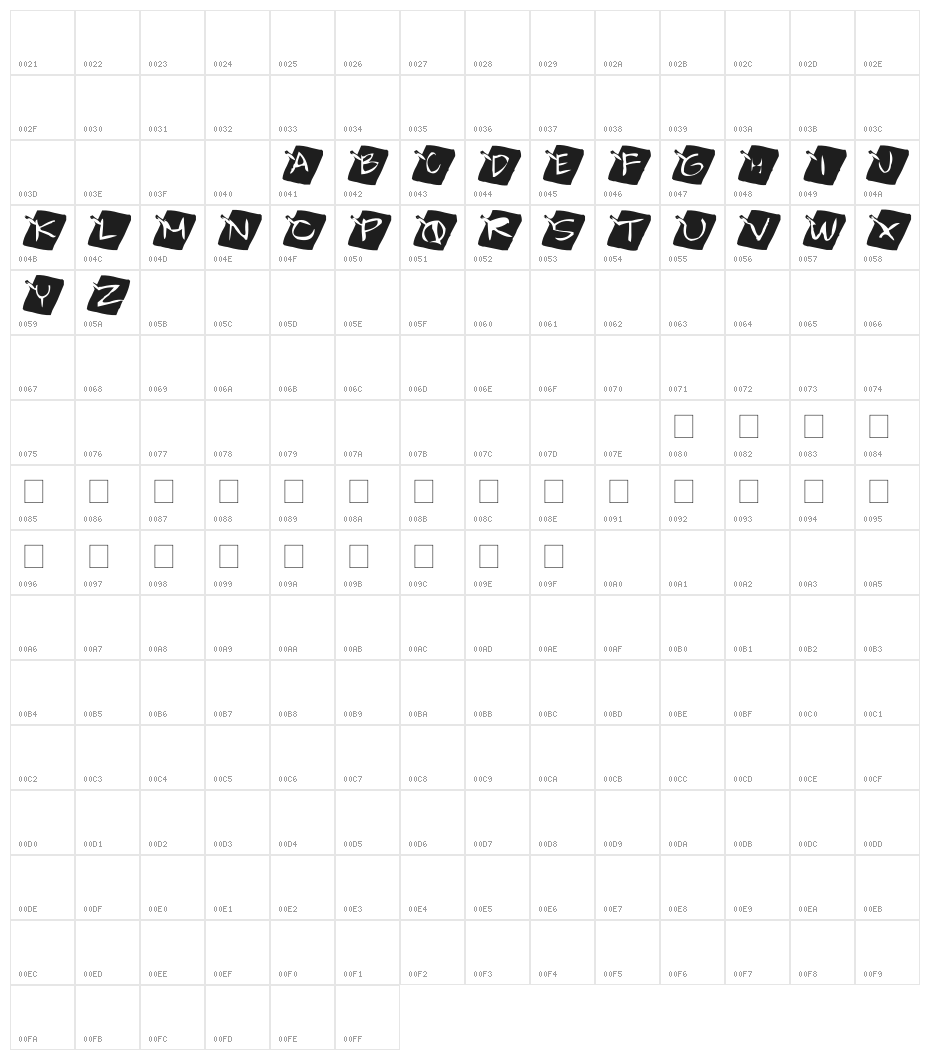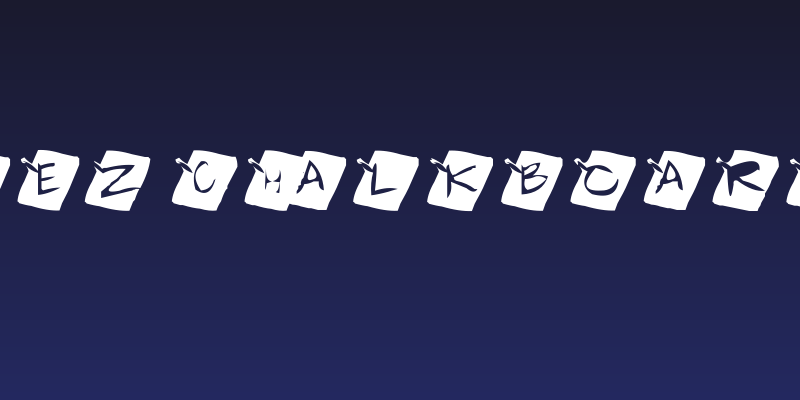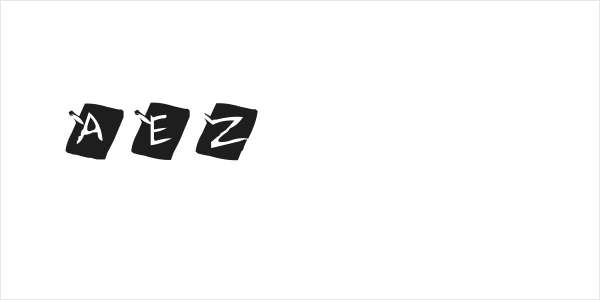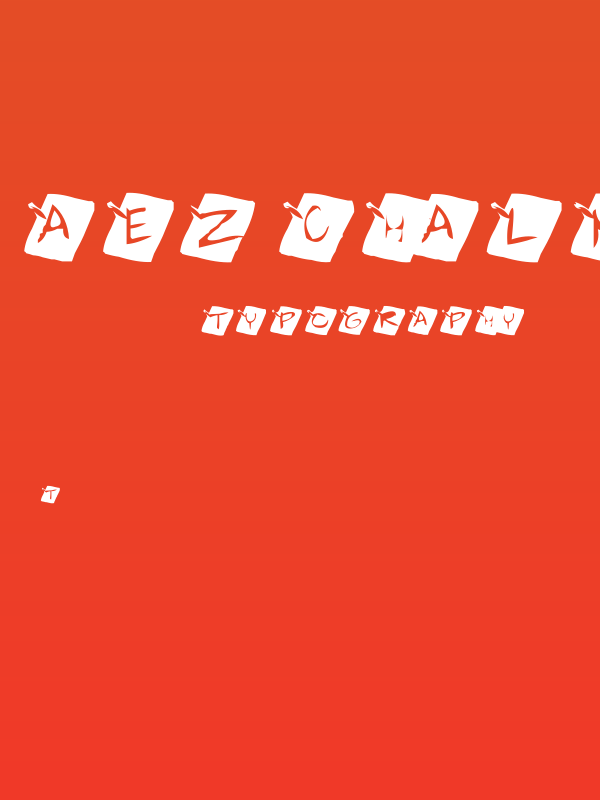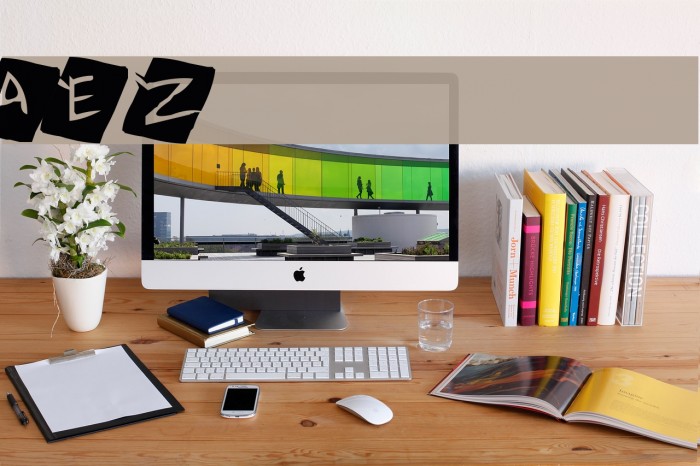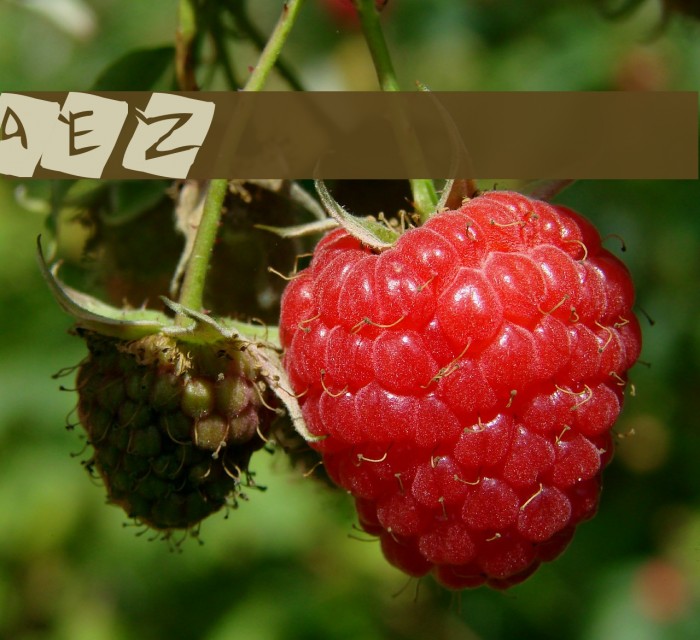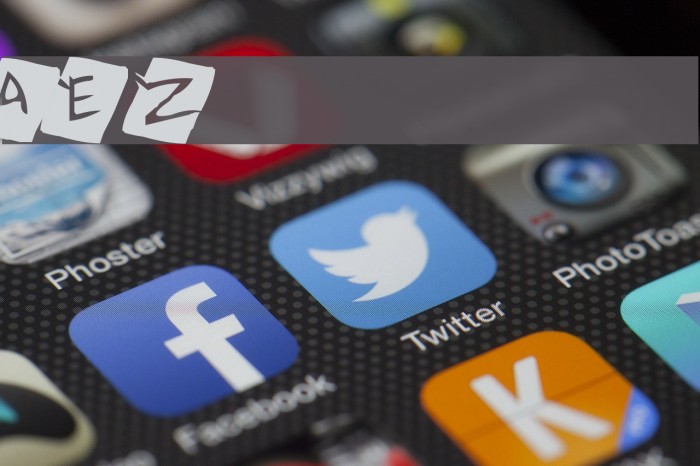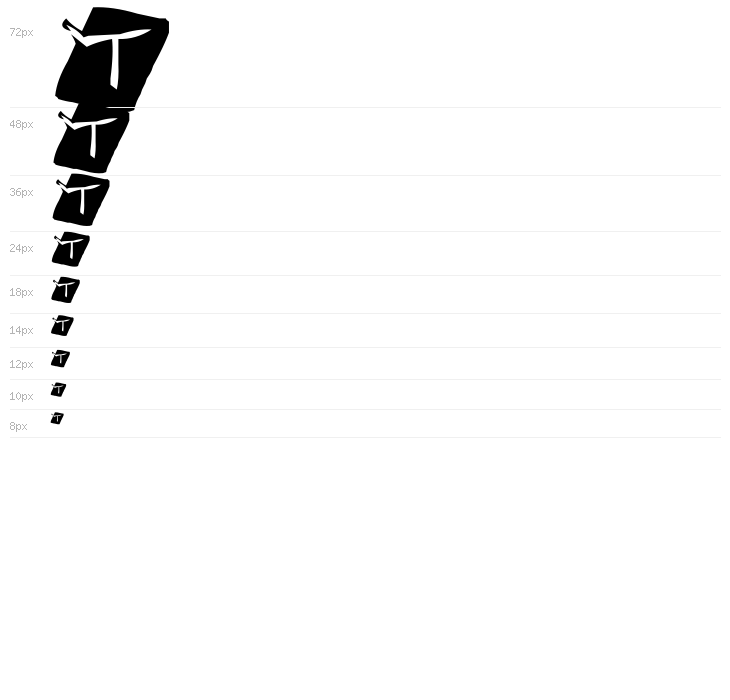
AEZ chalkboard Font
AEZ chalkboard Description
This font features a playful and dynamic style, reminiscent of chalk writing on a blackboard. Each letter is enclosed in a tilted square, giving it a unique and whimsical appearance. The letters are bold and have a hand-drawn quality, with slight variations that add to the charm. The overall look is informal and fun, making it ideal for creative projects. The font captures the essence of a classroom or educational setting, with a touch of nostalgia and creativity.
| Use Case | Headlines, Posters, Educational Materials |
| Proposed Projects | Ideal for educational materials, children's books, playful posters, and creative branding. |